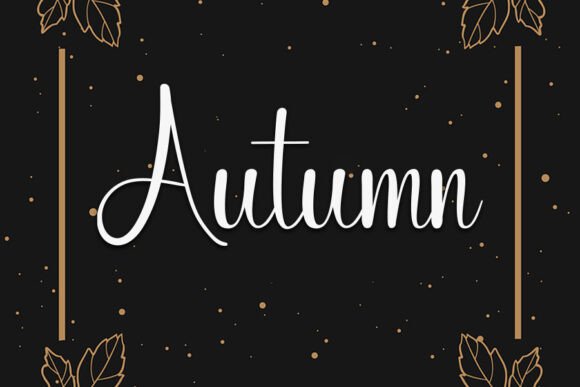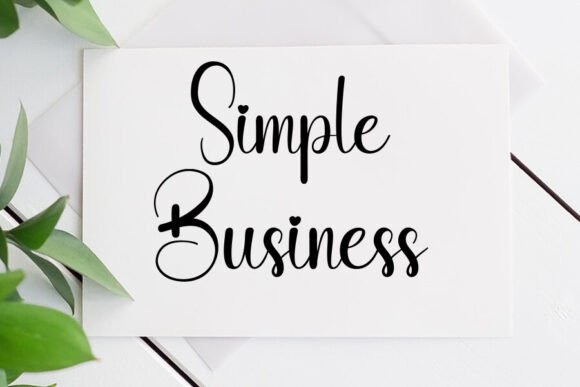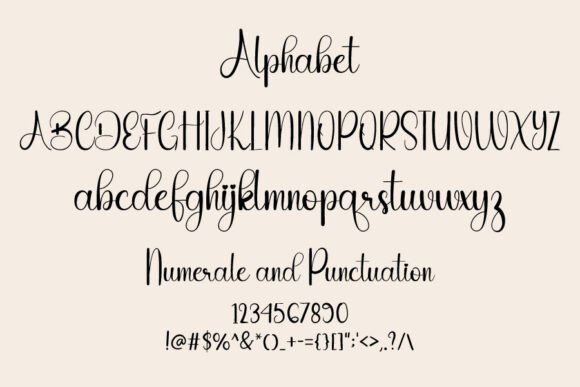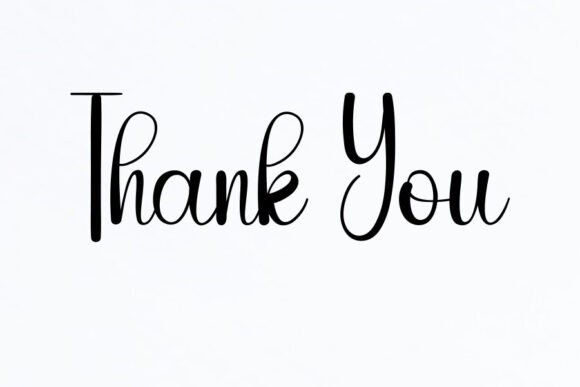
Introducing Birthday Font: The Ultimate Choice for Stunning Designs
Are you looking for a font that can add a touch of elegance and sophistication to your designs? Look no further than the Birthday Font, a lovely and timeless handwritten font that is perfect for creating eye-catching logos, branding, and quotes. With its unique and beautiful touch, this font is sure to make your design come alive!
What Makes Birthday Font So Special?
Every letter in the Birthday Font has a unique and beautiful touch that sets it apart from other fonts. The font is designed to resemble handwritten text, with subtle imperfections and variations that give it a personal and organic feel. This makes it perfect for designs that require a touch of warmth and personality, such as logos, branding, and social media graphics.
Why Choose Birthday Font for Your Designs?
There are many reasons why Birthday Font is the best choice for designers and crafters. Here are just a few:
- Elegant and Sophisticated: Birthday Font has an elegant and sophisticated look that is perfect for high-end designs. Whether you’re creating a logo, brochure, or social media graphic, this font is sure to impress.
- Unique and Personal: The unique and beautiful touch of every letter in Birthday Font makes it perfect for designs that require a personal touch. Your designs will stand out from the crowd and leave a lasting impression on your audience.
- Versatile: Birthday Font is a versatile font that can be used for a wide range of designs, from logos and branding to quotes and social media graphics.
- Easy to Read: Despite its elegant and sophisticated look, Birthday Font is easy to read and understand. This makes it perfect for designs that require a clear and concise message.
How to Use Birthday Font in Your Designs
Using Birthday Font in your designs is easy. Here are a few tips to get you started:
- Pair it with Other Fonts: Birthday Font looks great when paired with other fonts. Try pairing it with a bold sans-serif font for a striking contrast.
- Use it for Headings: Birthday Font is perfect for headings and titles. Use it to add a touch of elegance and sophistication to your designs.
- Add a Personal Touch: Use Birthday Font to add a personal touch to your designs. Add handwritten notes or quotes to give your designs a unique and personal feel.
Here are a few tips for designers and crafters who want to get the most out of Birthday Font:
- Experiment with Different Sizes: Birthday Font looks great in a variety of sizes. Experiment with different sizes to find the one that works best for your design.
- Use it for Branding: Birthday Font is perfect for branding. Use it to create a consistent look and feel across all your marketing materials.
- Add a Pop of Color: Birthday Font looks great in a variety of colors. Add a pop of color to your design to make it stand out.
In conclusion, Birthday Font is a lovely and timeless handwritten font that is perfect for creating eye-catching logos, branding, and quotes. With its unique and beautiful touch, this font is sure to make your design come alive! Whether you’re a designer or crafter, Birthday Font is a great choice for anyone looking to add a touch of elegance and sophistication to their designs.